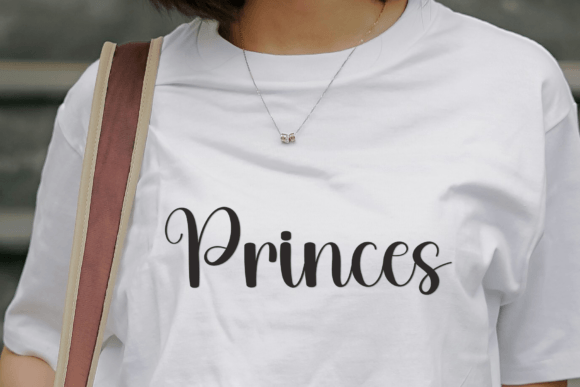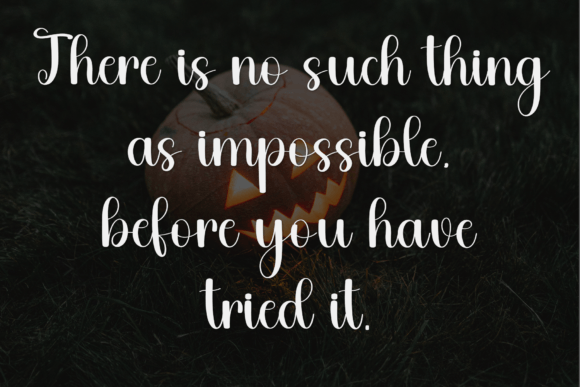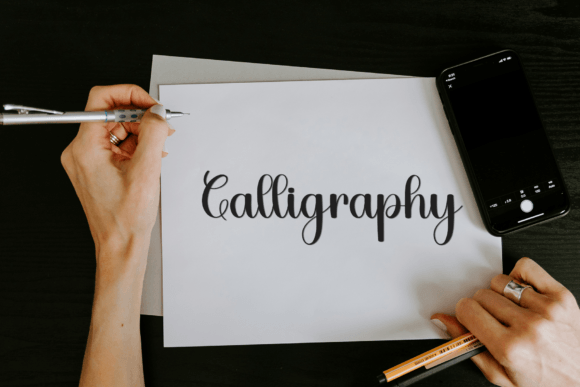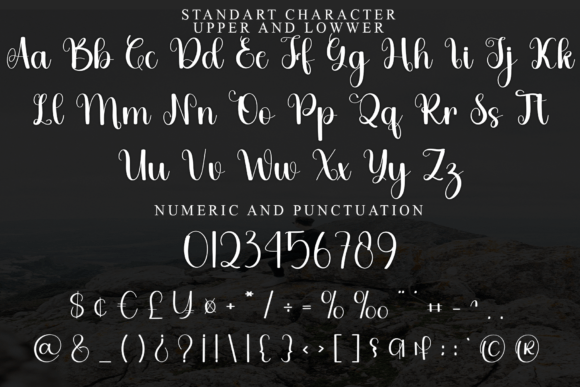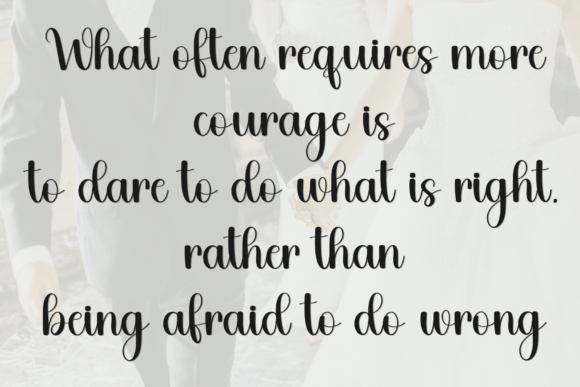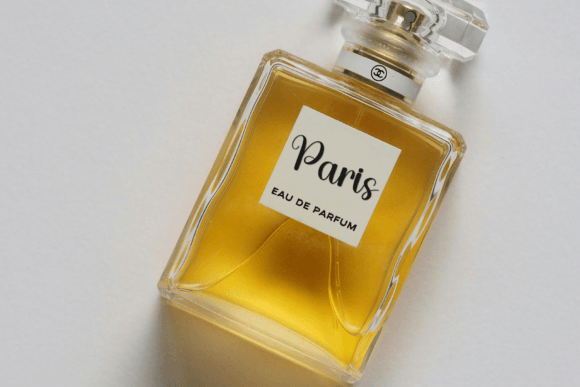
Introduction to Simple Rainny Font
As a designer, there’s nothing quite like the feeling of finally finding the perfect font to bring your creative project to life. For me, it’s like stumbling upon a hidden treasure that instantly elevates the entire design. And that’s exactly what happened when I discovered the Simple Rainny Font.
With its elegant and sophisticated script, this font is a game-changer for designers looking to add a touch of handwritten charm to their designs. Whether it’s a wedding invitation, a thank you card, or a business logo, Simple Rainny Font is sure to make a lasting impression.
Key Features of Simple Rainny Font
- Simple yet sophisticated font, perfect for use in logos, headings, or body text, adding a touch of sophistication to any design.
Honest Review: Simple Rainny Font
As a designer, I’m always on the lookout for high-quality design resources to elevate my creative projects. Recently, I stumbled upon the Simple Rainny Font, and I’m excited to share my thoughts on it.
- Unique and elegant design style that adds a touch of sophistication to any project
- High-quality font files that are perfect for printing and digital use
- Only a few font weights and styles available, which may limit its versatility
- No extended character set, which may cause issues with non-English languages
Overall, I’m impressed with the Simple Rainny Font. Its elegant design style and high-quality files make it a great addition to any designer’s toolkit. While it may have some limitations, it’s still a valuable resource for creative projects. If you’re looking for a simple yet stylish font, the Simple Rainny Font is definitely worth checking out.
To get the most out of the Simple Rainny Font, use it in combination with other design elements to create a cohesive look. Experiment with different font sizes, colors, and arrangements to find the perfect balance for your creative project.
The Simple Rainny Font is ideal for use in design projects that require a clean and modern look. It’s commonly used in logos, business cards, and other marketing materials where a high level of professionalism is required.
Alternatives to Simple Rainny Font
Pacifico Font is a beautiful, elegant script font perfect for creative projects that require a touch of sophistication. It features a high-quality design and a transparent background, making it ideal for use on various backgrounds.
When to use: Use Pacifico Font for formal events, weddings, or any occasion that demands a sense of luxury.
Comparison: Pacifico Font is more elegant and formal compared to Simple Rainny Font, which is more casual and playful.
Great Vibes Font is a fun, modern script font ideal for designers looking for a unique design resource. It’s perfect for creative projects that require a lively and energetic feel.
When to use: Use Great Vibes Font for social media posts, advertisements, or any project that demands a fun and playful vibe.
Comparison: Great Vibes Font is more energetic and playful compared to Simple Rainny Font, which is more subtle and understated.